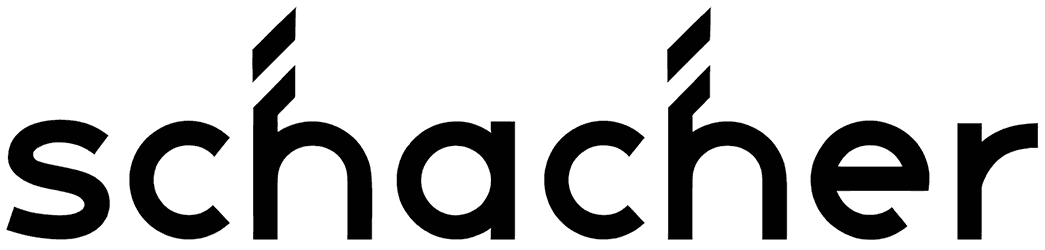
Schacher Font
Have you been looking for a sci-fi font to utilize in your work? If your graphical display has become dull and boring, Schacher may be the rescuer you’ve been looking for. For the finest results in your next poster, card…
Have you been looking for a sci-fi font to utilize in your work? If your graphical display has become dull and boring, Schacher may be the rescuer you’ve been looking for.
For the finest results in your next poster, card, or digital design, try using this contemporary fancy font, which has no uppercase letters. Check out our ever-expanding collection of free resources now to get first access to any free resources you need.